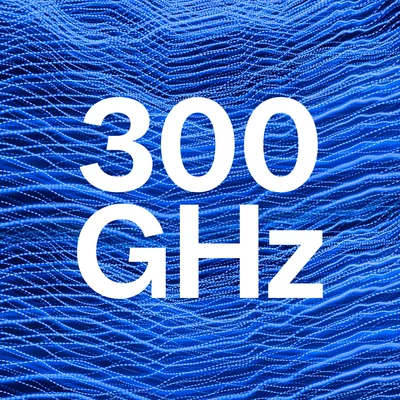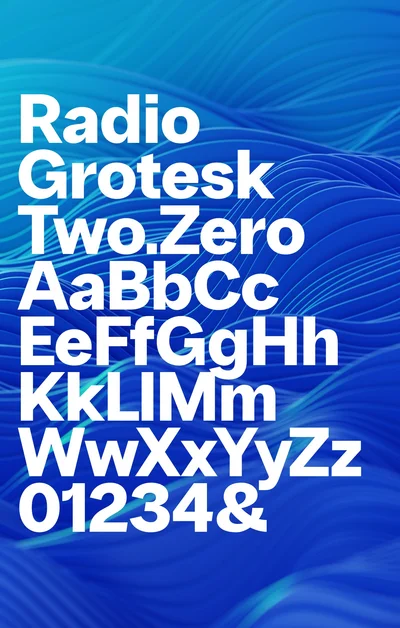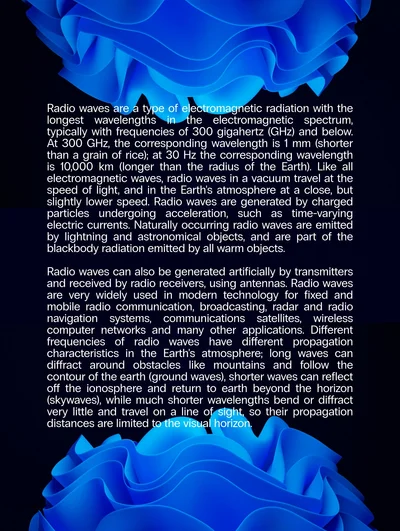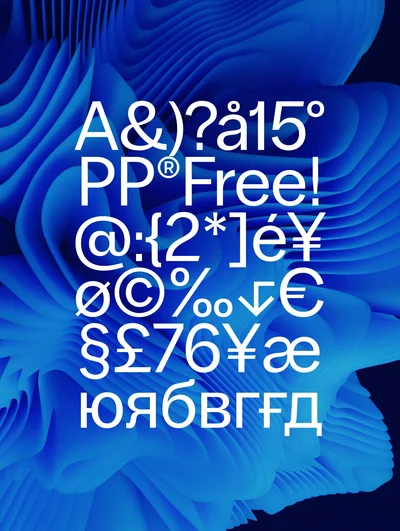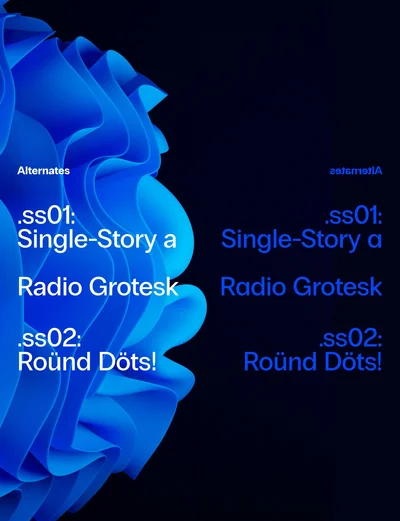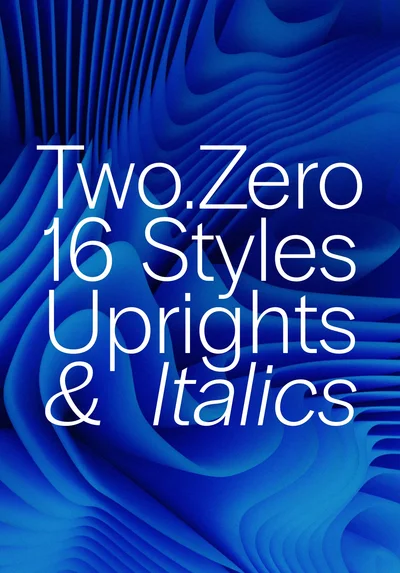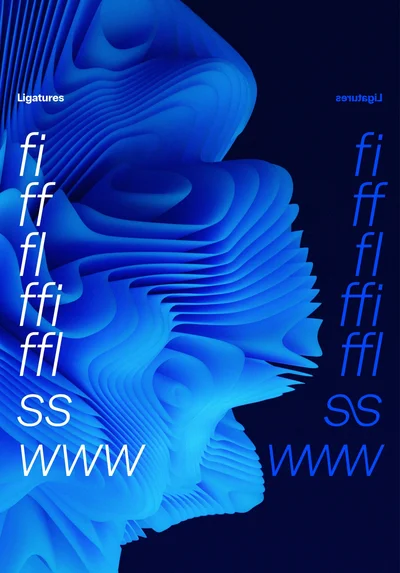
Ginto vs PP Radio Grotesk
Ginto and PP Radio Grotesk are both sans-serif typefaces sharing a neo-grotesque foundation. The two share 86% design similarity overall. Compare which suits your Editorial project.
86% Similarity
Design overlap:75%
Ginto
Neo-Grotesque
ModernExpressive
PP Radio Grotesk
Neo-Grotesque
Modern
Ginto
PP Radio Grotesk
| Feature | Ginto | PP Radio Grotesk |
| Source | Dinamo | Pangram |
Recommended: Ginto
- expressive design character
- Suited for Creative
- From Dinamo
Consider: PP Radio Grotesk
- Suited for Web
- From Pangram
PP Radio Grotesk